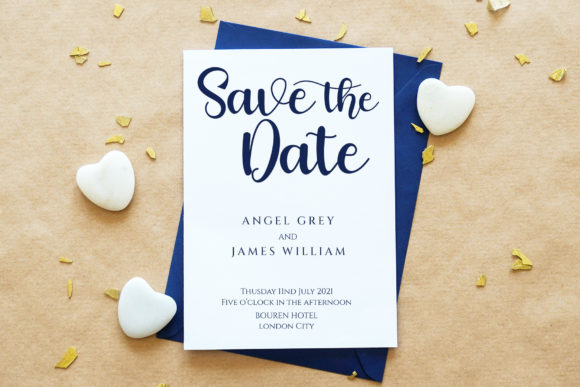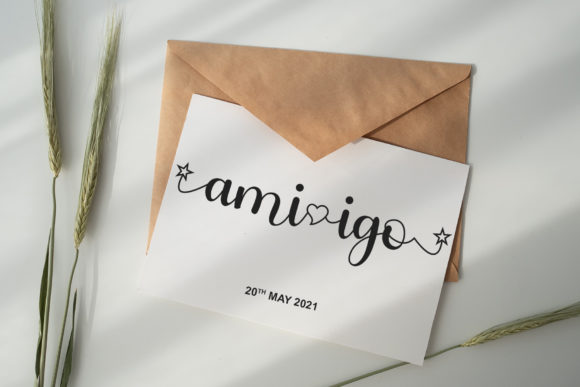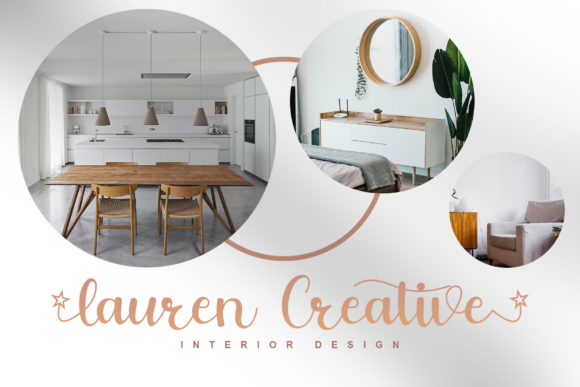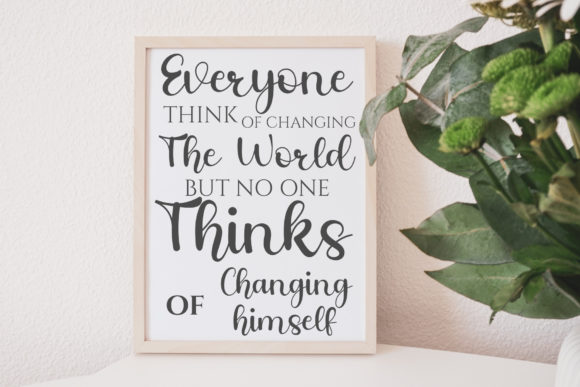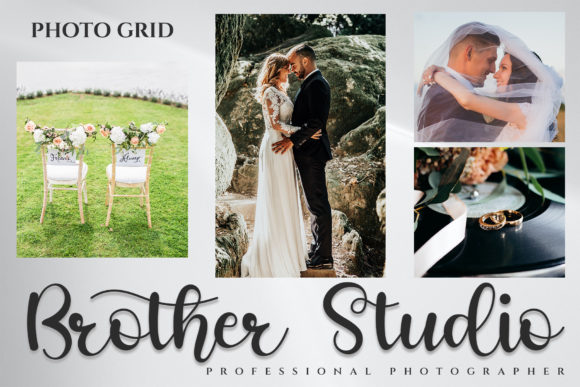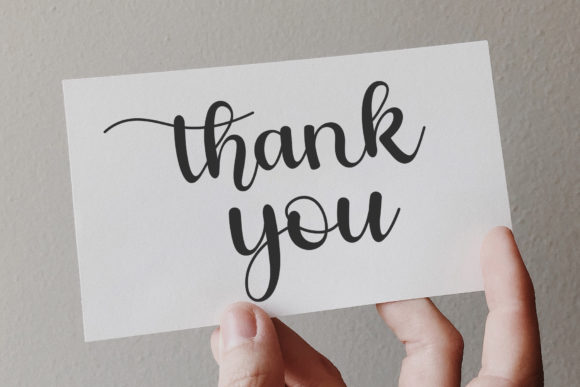
Hello Baby Font: Elevate Your Designs with Elegance and Luxury
Are you on the hunt for a font that exudes elegance, luxury, and versatility? Look no further than the Hello Baby Font. This stunning handwritten font is designed to take your designs to the next level, making it perfect for crafters, designers, and anyone looking to add a touch of sophistication to their projects.
What Makes Hello Baby Font So Special?
Hello Baby Font is not just any ordinary font. It’s a meticulously crafted handwritten font that boasts an incredibly versatile style, making it suitable for a wide range of design applications. Whether you’re working on a branding project, creating wedding invitations, or designing social media graphics, this font is sure to impress.
One of the standout features of Hello Baby Font is its PUA (Private Use Area) encoding. This means that you can easily access all the glyphs and swashes, allowing you to add intricate details and flourishes to your designs. With PUA encoding, you can say goodbye to tedious font editing and hello to seamless design creation.
The versatility of Hello Baby Font is truly limitless. Its elegant and luxurious style makes it perfect for:
- Social media graphics and quotes
- Logos and wordmarks
- Signage and display design
Whether you’re a seasoned designer or a crafty DIY enthusiast, Hello Baby Font is sure to inspire your creativity and help you create spectacular designs that leave a lasting impression.
Why Choose Hello Baby Font?
So, what sets Hello Baby Font apart from other fonts on the market? Here are just a few reasons why designers and crafters are falling in love with this stunning font:
- Elegant and luxurious style: Add a touch of sophistication to your designs with Hello Baby Font’s refined and upscale aesthetic.
- PUA encoding: Easily access glyphs and swashes to take your designs to the next level.
- Versatility: Use Hello Baby Font for a wide range of design applications, from branding to social media graphics.
- Easy to use: Seamlessly integrate Hello Baby Font into your design workflow, even if you’re new to font editing.
Get Ready to Fall in Love with Hello Baby Font
If you’re ready to elevate your designs with a font that’s both elegant and luxurious, look no further than Hello Baby Font. With its PUA encoding, versatile style, and endless design possibilities, this font is sure to become a staple in your design toolkit.
In conclusion, Hello Baby Font is a game-changing font that’s sure to take your designs to new heights. With its elegant and luxurious style, PUA encoding, and versatility, this font is perfect for anyone looking to add a touch of sophistication to their projects. So why wait? Download Hello Baby Font today and start creating spectacular designs that leave a lasting impression!